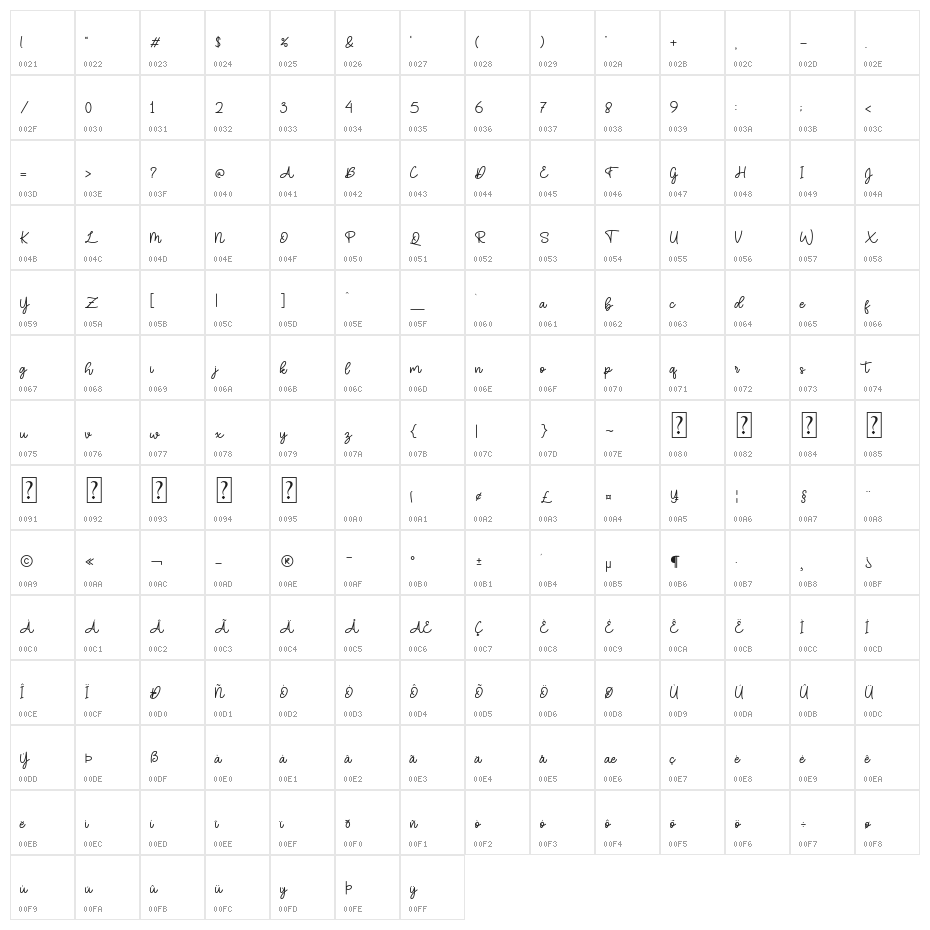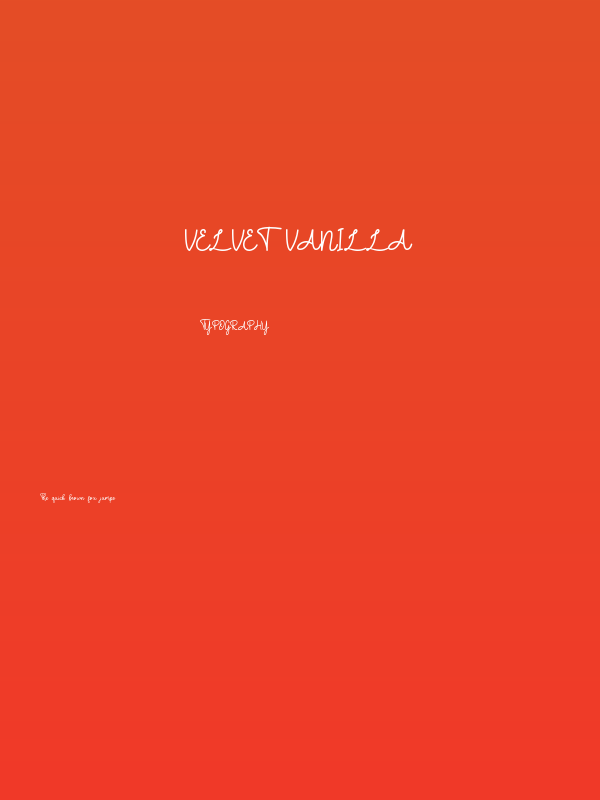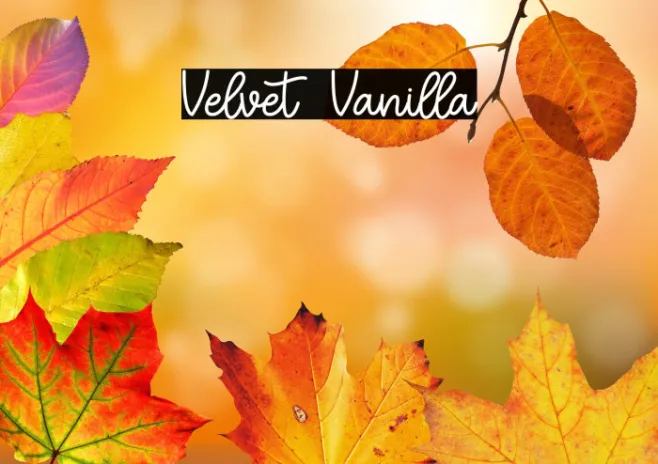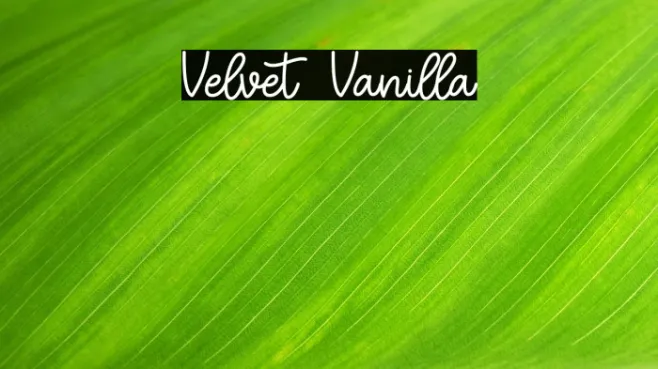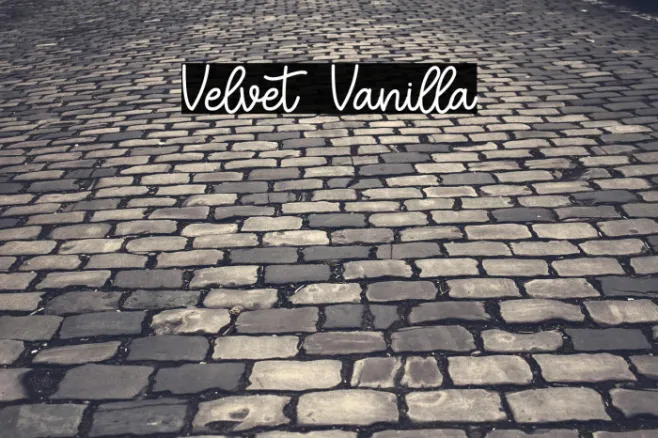
Velvet Vanilla Font
Velvet Vanilla Description
This font exudes a playful and elegant charm with its handwritten style. The characters are fluid and connected, giving a sense of continuity and flow. The uppercase letters are slightly more elaborate, with some featuring unique loops and swirls that add a touch of sophistication. The lowercase letters maintain a consistent style, with rounded edges and smooth curves. The numerals are clear and easy to read, while the special characters blend seamlessly with the overall aesthetic. This font is perfect for projects that require a personal and artistic touch.
| Overall Style | Elegant, Playful |
| Proposed Projects | Ideal for wedding invitations, greeting cards, personal branding, and artistic projects. |